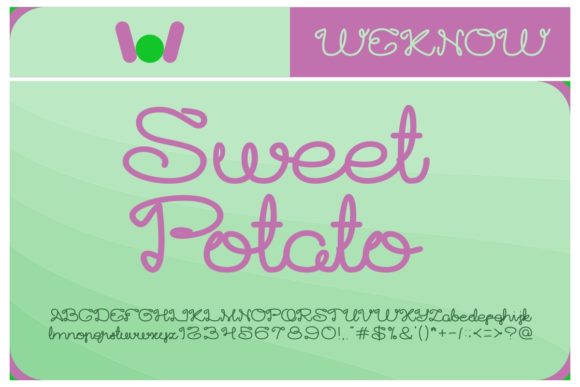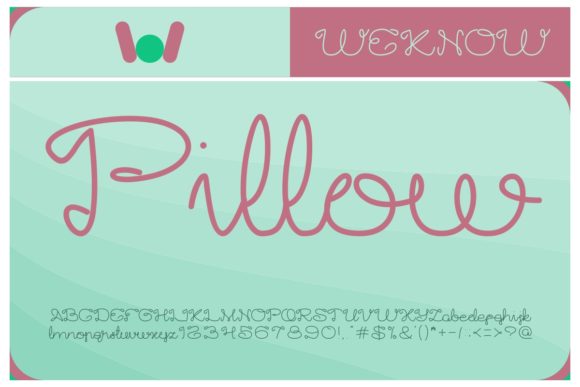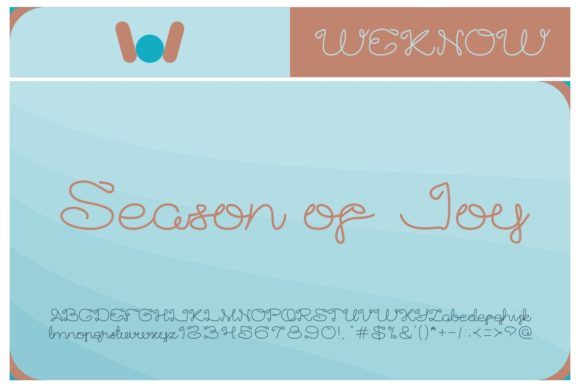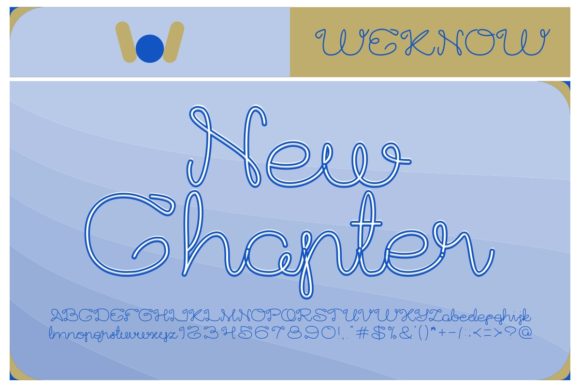
Introducing Art Heart Font: The Perfect Addition to Your Creative Projects
Are you a designer, crafter, or DIY enthusiast looking for a unique and creative font to elevate your visual designs? Look no further than Art Heart Font, a beautiful and versatile script font that’s perfect for a wide range of projects. In this article, we’ll explore the features and benefits of Art Heart Font, and show you how to make the most of this lovely font in your designs.
What is Art Heart Font?
Art Heart Font is a cute and charming script font that’s designed to add a touch of creativity and whimsy to your designs. With its flowing lines and delicate curves, this font is perfect for creating visually appealing and engaging designs that capture the attention of your audience. Whether you’re working on a logo, t-shirt design, magazine cover, or any other visual project, Art Heart Font is the ideal choice.
Key Features of Art Heart Font
- Cute and playful design: Art Heart Font features a unique and adorable design that’s sure to capture the hearts of your audience.
- Versatile and flexible: This font is perfect for a wide range of projects, from logos and t-shirt designs to magazine covers and more.
- Easy to read and understand: Despite its creative and artistic design, Art Heart Font is easy to read and understand, making it perfect for use in body text and headlines.
- Scalable and adjustable: Art Heart Font is designed to be scalable and adjustable, allowing you to use it in a variety of sizes and styles to suit your needs.
Benefits of Using Art Heart Font
So why choose Art Heart Font for your creative projects? Here are just a few benefits of using this lovely font:
- Adds a creative spark: Art Heart Font is designed to add a creative spark to your designs, helping you to stand out from the crowd and capture the attention of your audience.
- Perfect for branding and identity: With its unique and memorable design, Art Heart Font is perfect for use in logos, branding, and identity projects.
- Ideal for DIY and crafting projects: Whether you’re working on a DIY project, crafting, or making, Art Heart Font is the perfect choice for adding a personal touch to your creations.
- Easy to pair with other fonts: Art Heart Font is designed to be easy to pair with other fonts, making it simple to create visually appealing and harmonious designs.
How to Use Art Heart Font in Your Designs
Using Art Heart Font in your designs is easy and straightforward. Here are a few tips to get you started:
- Use it as a headline font: Art Heart Font is perfect for use in headlines and titles, where its creative and artistic design can really shine.
- Add it to your logo designs: With its unique and memorable design, Art Heart Font is perfect for use in logo designs and branding projects.
- Pair it with other fonts: Experiment with pairing Art Heart Font with other fonts to create visually appealing and harmonious designs.
- Adjust and customize: Don’t be afraid to adjust and customize Art Heart Font to suit your needs, whether that means changing the size, color, or style.
In conclusion, Art Heart Font is a beautiful and versatile script font that’s perfect for any creative project. With its cute and playful design, flexible and scalable features, and easy-to-use style, this font is ideal for designers, crafters, and DIY enthusiasts alike. Whether you’re working on a logo, t-shirt design, magazine cover, or any other visual project, Art Heart Font is the perfect choice for adding a creative spark and elevating your designs to the next level.